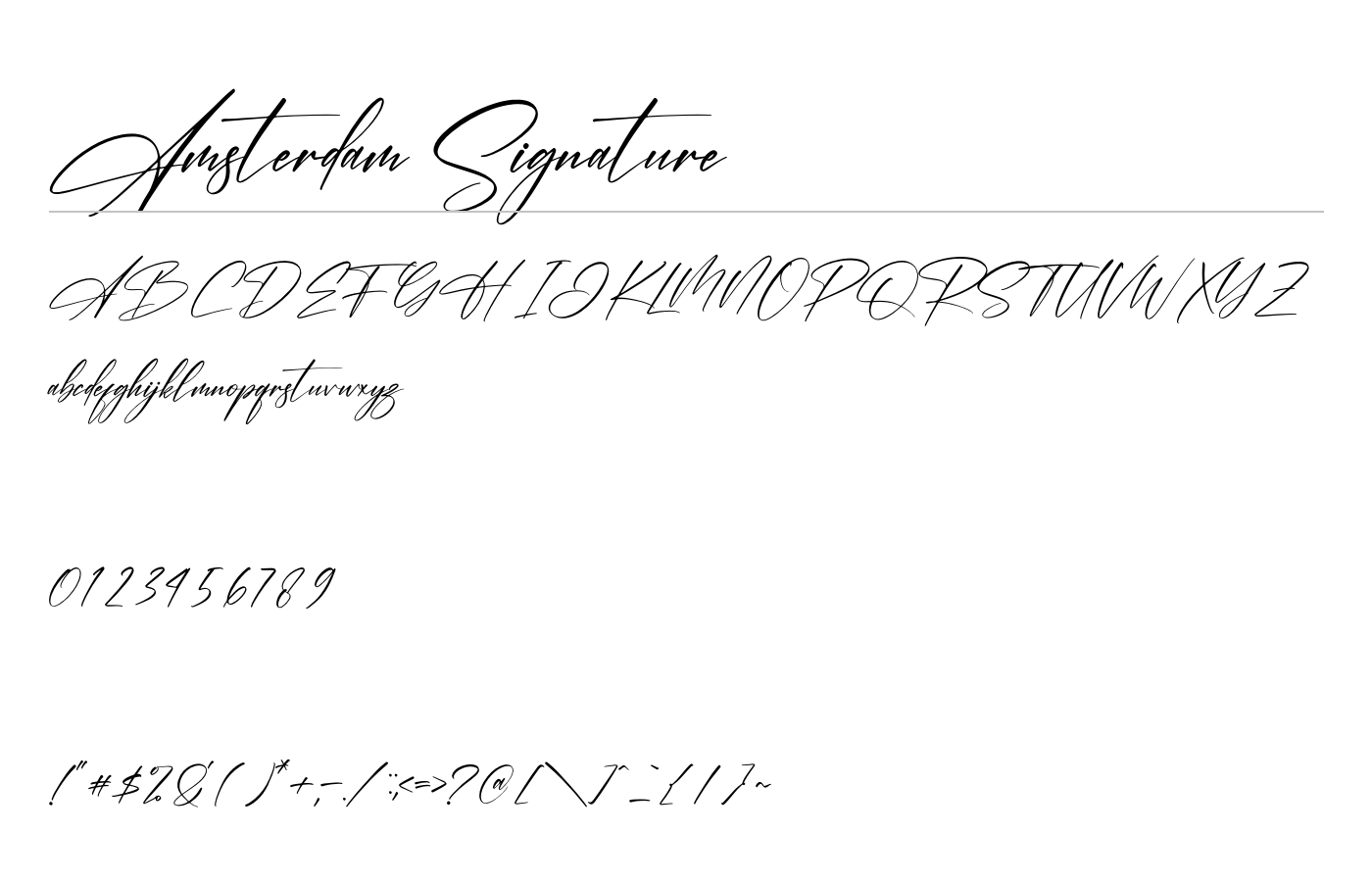
Amsterdam Signature Font is an elegant and flowing script typeface that mimics natural handwriting with smooth, delicate strokes and a high contrast between thick and thin lines. Its tall, slender letterforms and refined curves create a sophisticated, personal feel, making it perfect for luxury branding, wedding invitations, and stylish logos where a touch of grace and individuality is desired. This font shines best in headlines or short text, lending a chic and modern signature-like style to any design.
Amsterdam Signature Font
About Amsterdam Signature Font